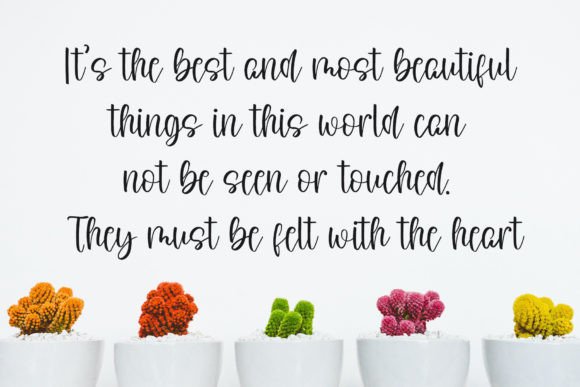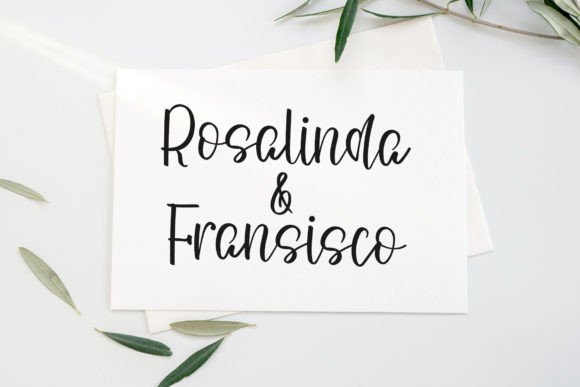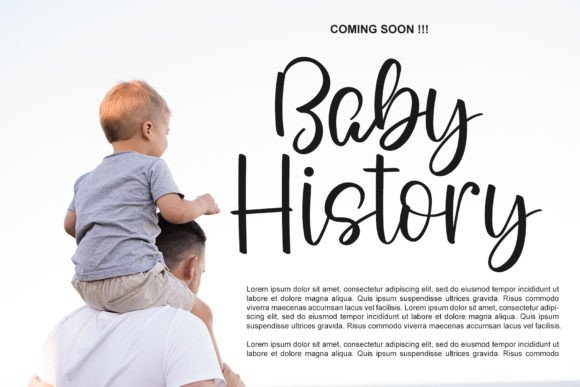
Introduction to Griswold Font
Griswold is a stylish and modern handwritten font, suitable for a wide spectrum of applications.
From greeting cards to headlines, branding, and packaging, this font will guarantee a romantic touch to each of your creations .
Griswold Font offers exceptional quality and versatility, making it a valuable addition to your design toolkit. Whether you’re creating for personal projects or commercial use, Griswold Font delivers professional results.